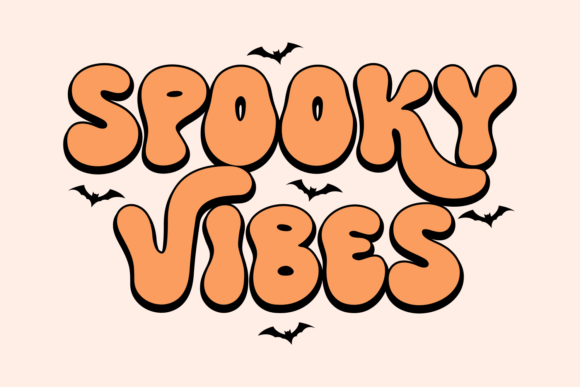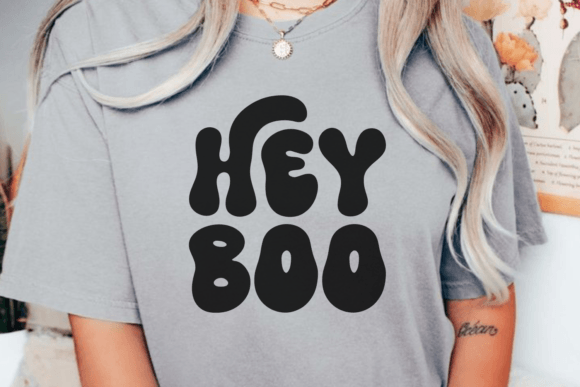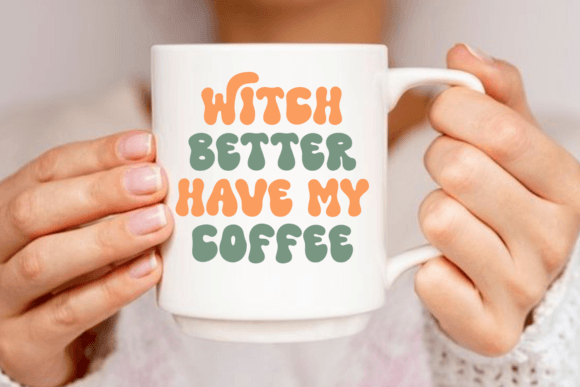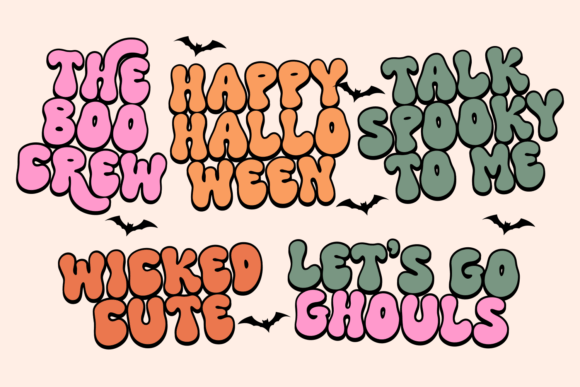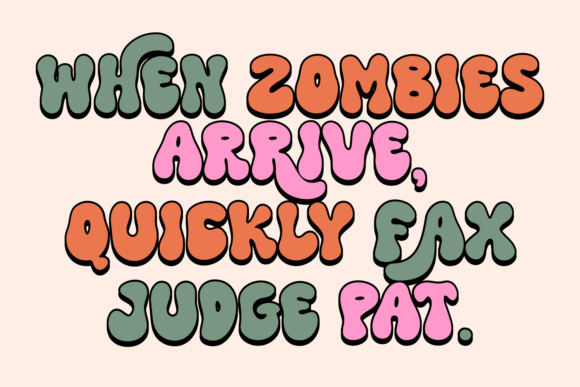
Introduction to Magic Scary Font
Immerse yourself in the nostalgic charm of the Magic Scary font.
This retro-inspired, groovy typeface encapsulates the creepy allure of October celebrations, creating a captivating touch like no other Ideal for Halloween event invites, digital content, and other bewitching dรฉcor elements, the Magic Scary font effortlessly sparks a mesmerizing, spine-chilling aura perfect for the spookiest season of all.
Key Features of Magic Scary Font